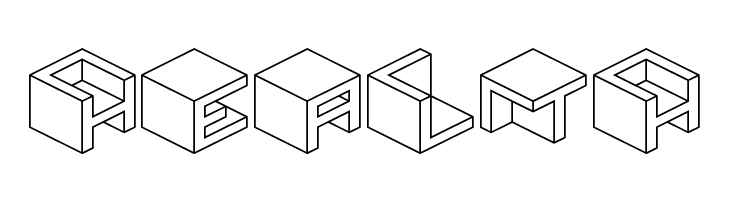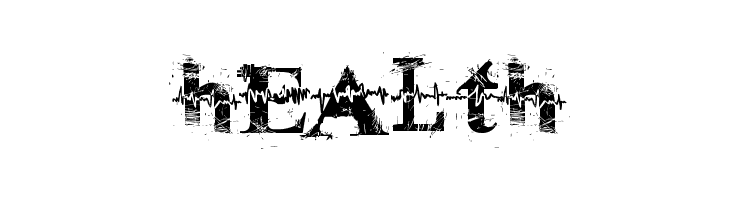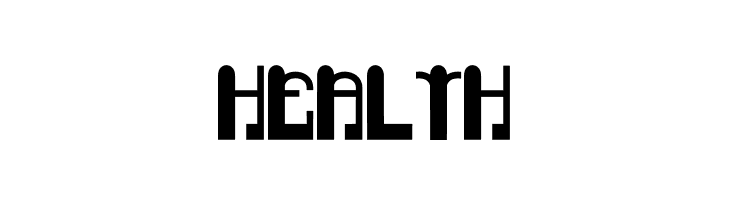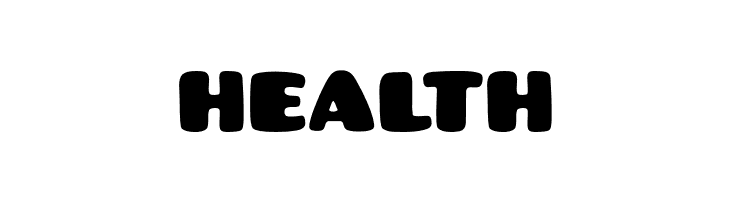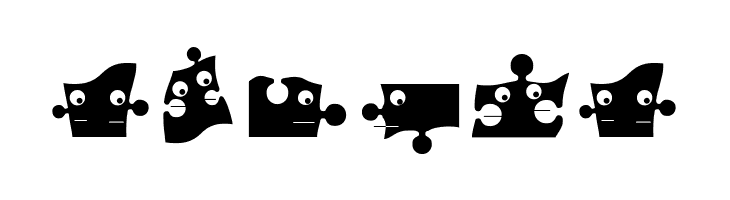
• Pulipuli Regular
A bold, decorative font with playful curves and artistic flair.
• pulse sans
• PurpleTigerCubs
A bold, geometric font with high contrast and angular shapes, perfect for modern designs.
• Pusab
A bold, rounded, and playful font with a chunky appearance.
• PuzzleParts
A playful font with characters shaped like jigsaw puzzle pieces, ideal for fun and creative projects.
• Pynkei_DIN
• Pyriform Tones NF
A classic serif font with elegant, bold characters and unique lowercase loops.
• PyriformTonesNF
A classic serif font with elegant curves and a playful touch.
• Qbicle 2 BRK
A three-dimensional cubic font with a modern, architectural style.
• Quadratic BRK
A rounded, modern font with consistent stroke thickness and smooth curves.